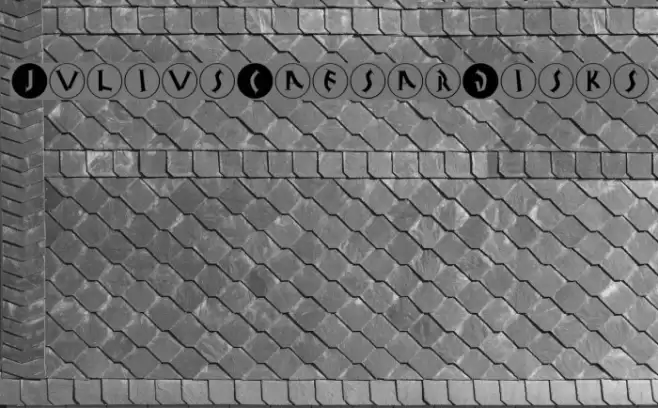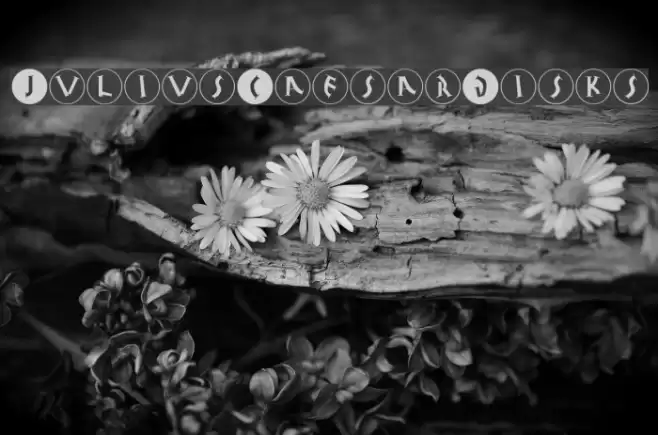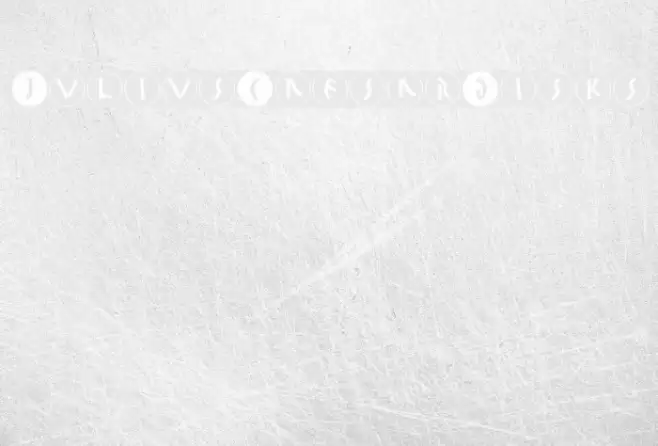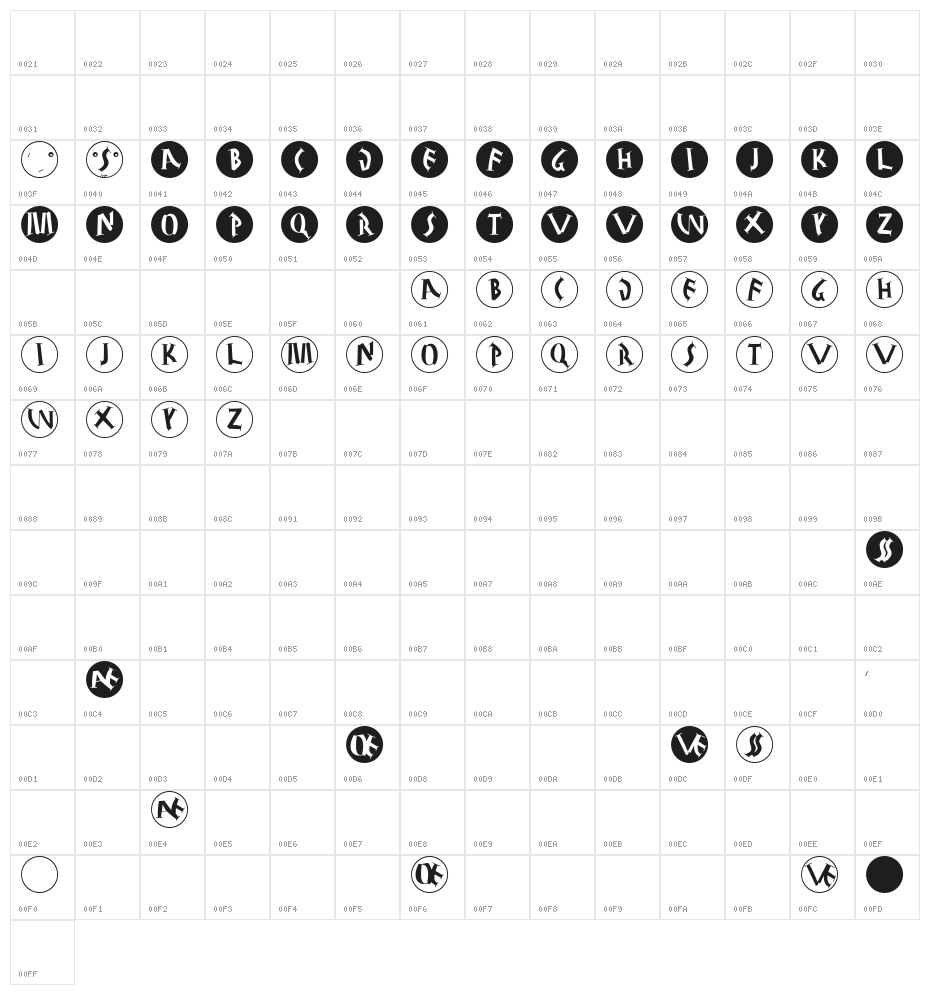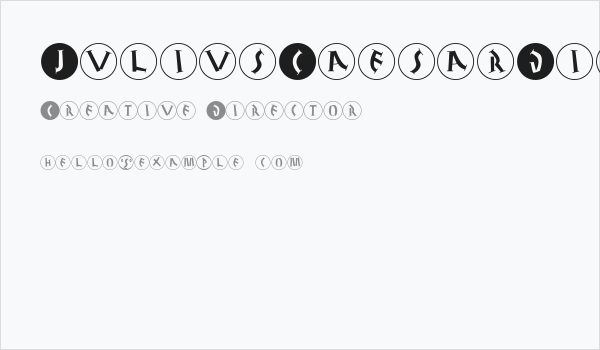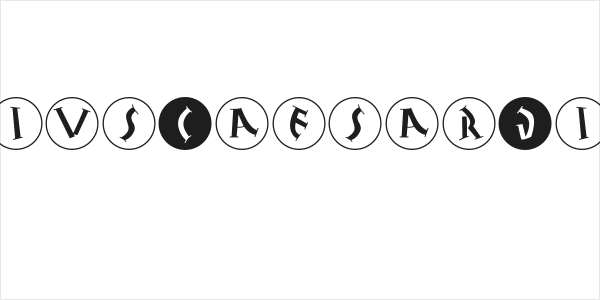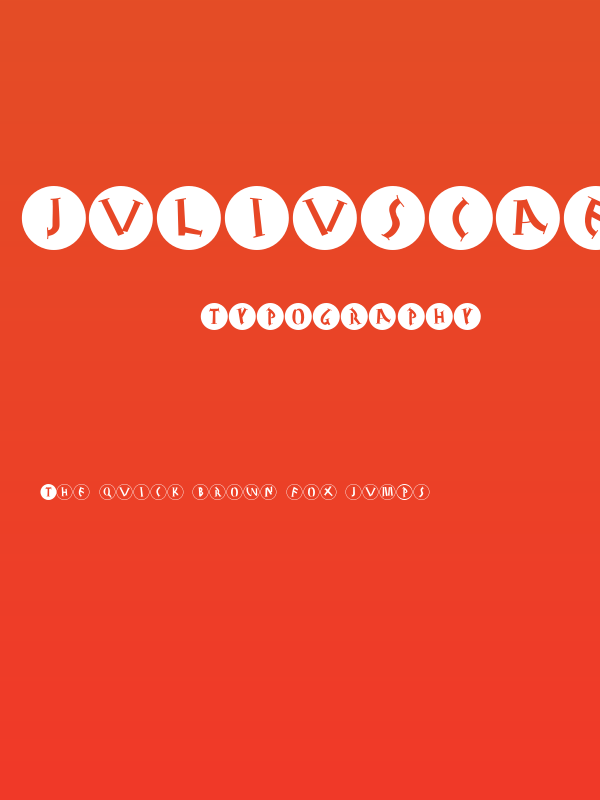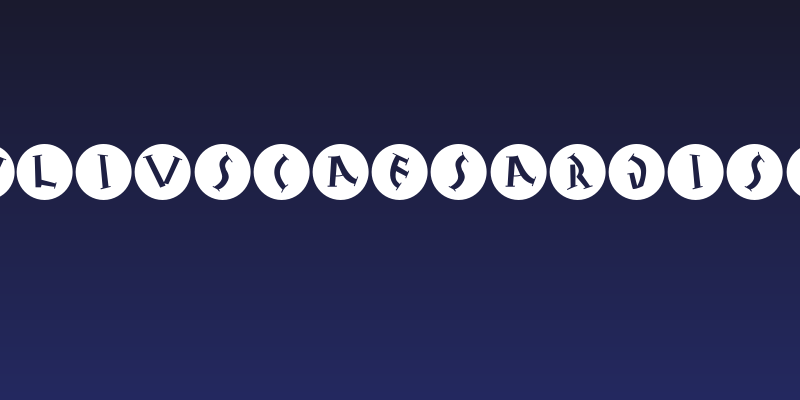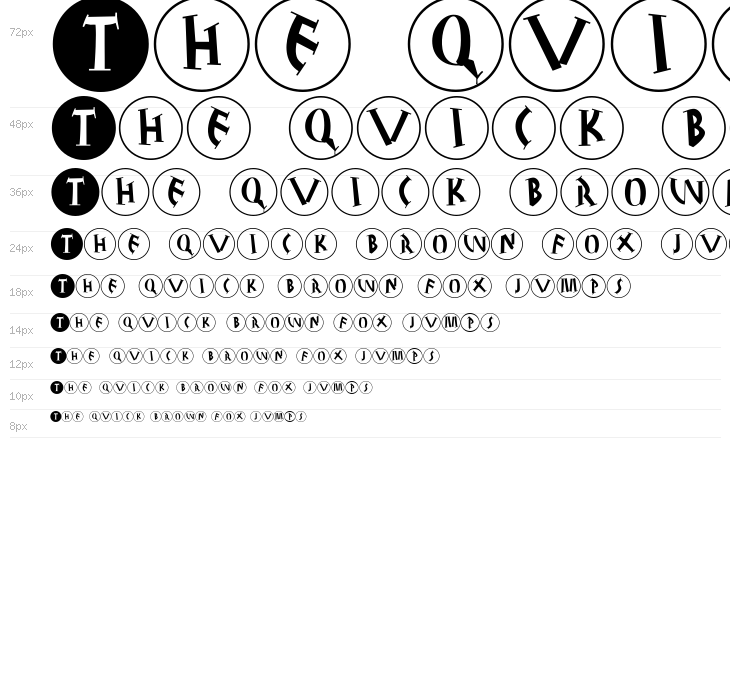
JuliusCaesarDisks Font
JuliusCaesarDisks Description
This font features a unique and bold design where each character is enclosed within a circular disk. The letters are stylized with a mix of sharp and curved lines, creating a dynamic and somewhat ancient appearance. The use of solid black disks for the uppercase letters gives a strong visual impact, while the white disks provide a contrasting background that highlights the letterforms. The font's design is reminiscent of ancient Roman or Greek inscriptions, lending it a historical and classical feel. The characters are evenly spaced within their circular boundaries, ensuring readability despite the decorative style.
A bold, disk-enclosed font with a classical, ancient inscription style from Uncategorized fonts.
- Proposed Projects: Ideal for historical themed projects, logos, posters, or any design requiring a classical or ancient aesthetic.
- Overall Style: Classic